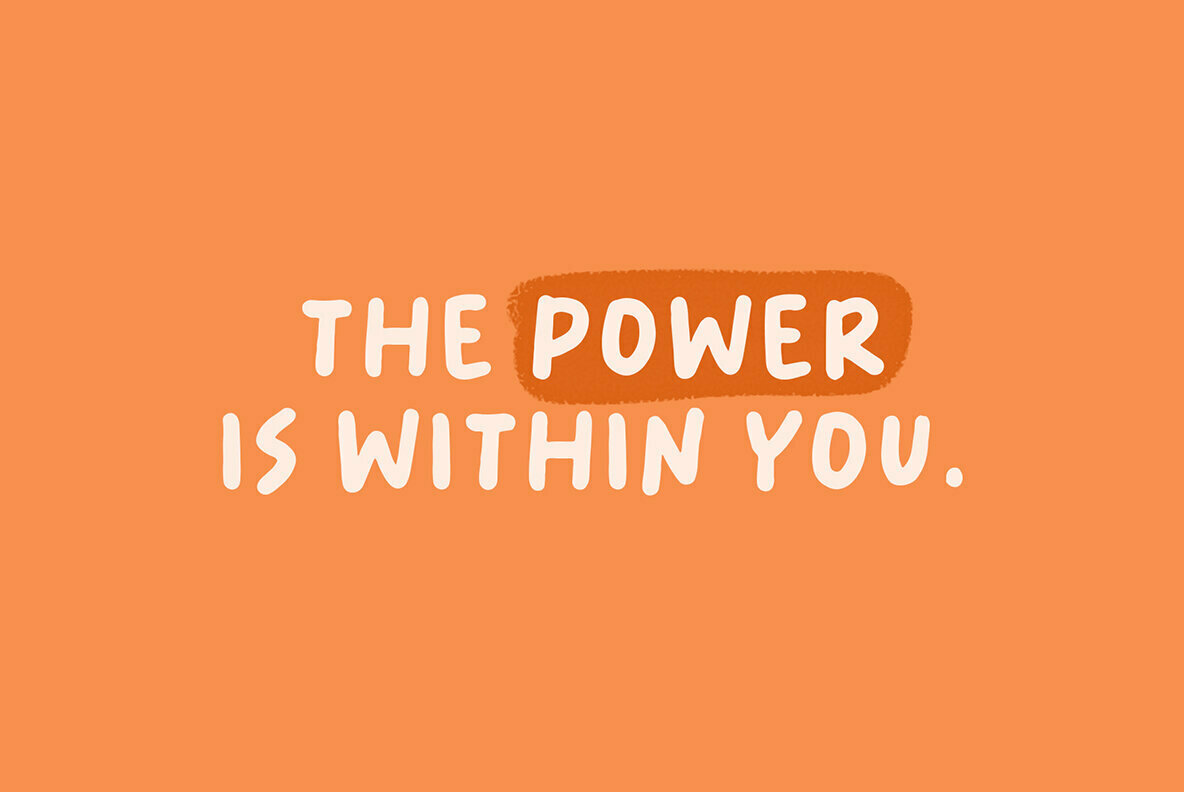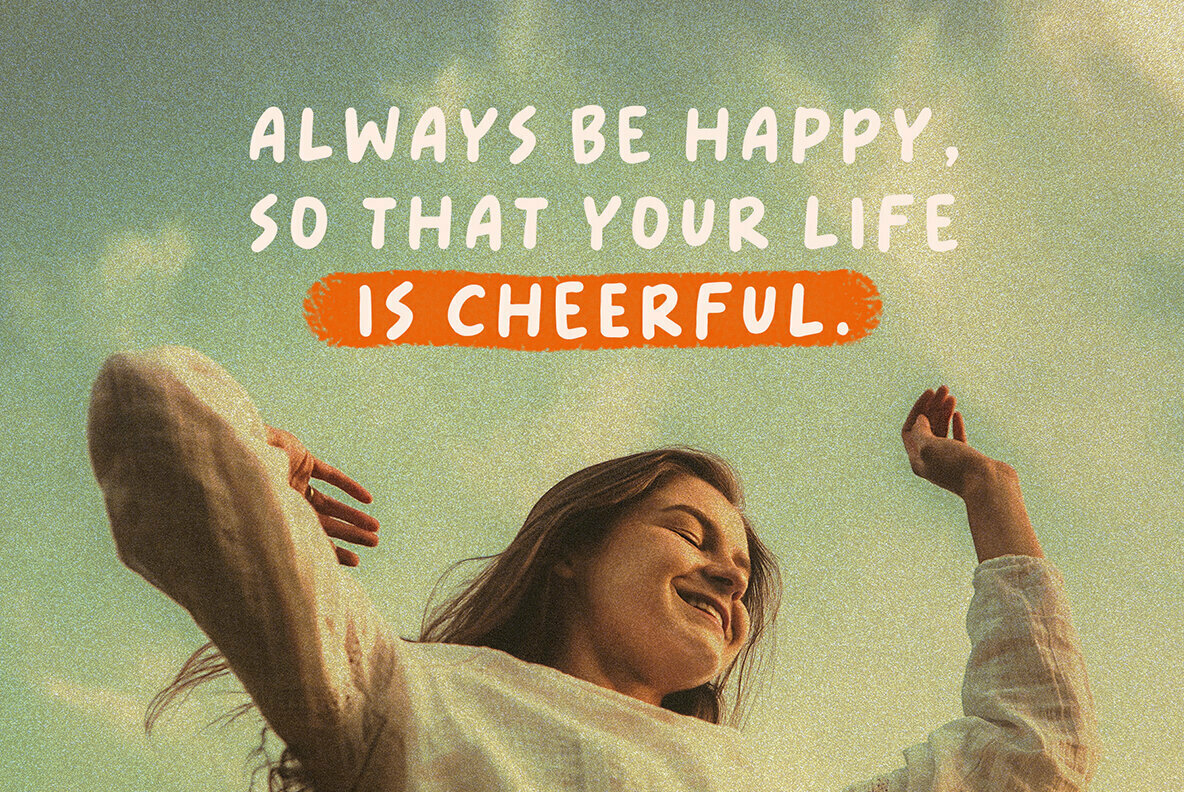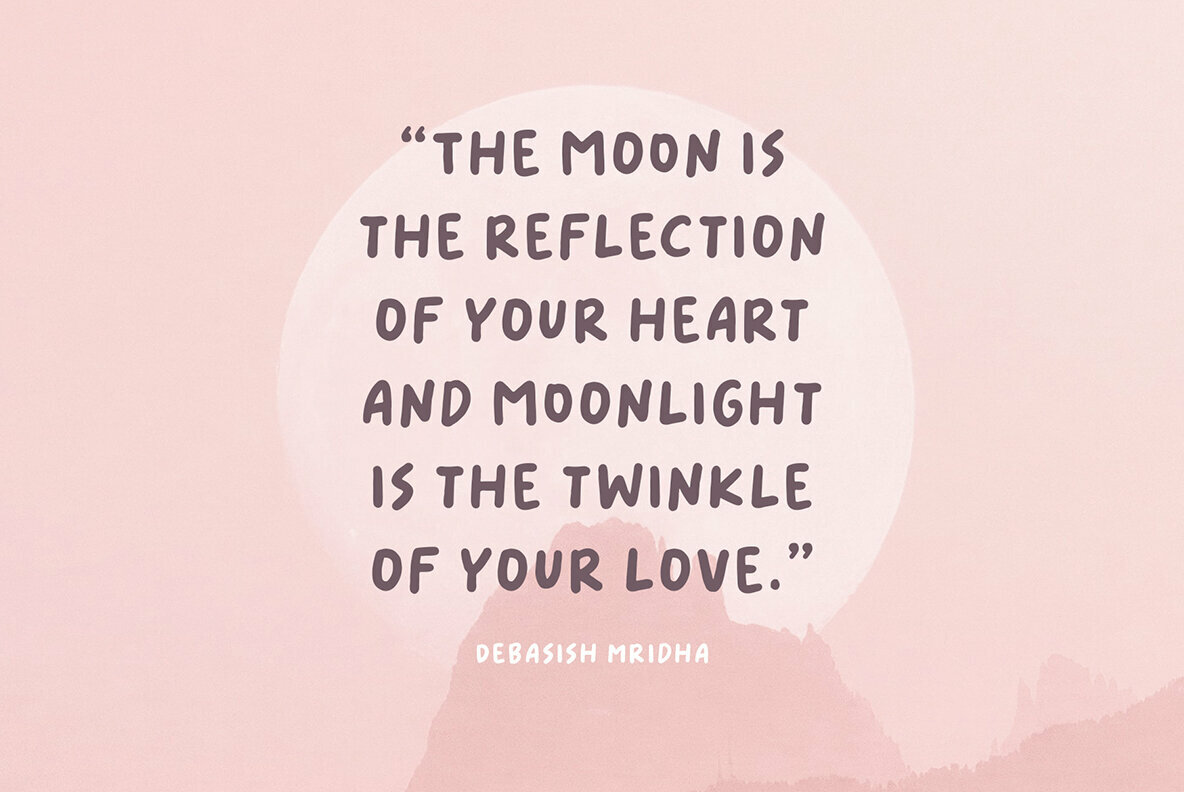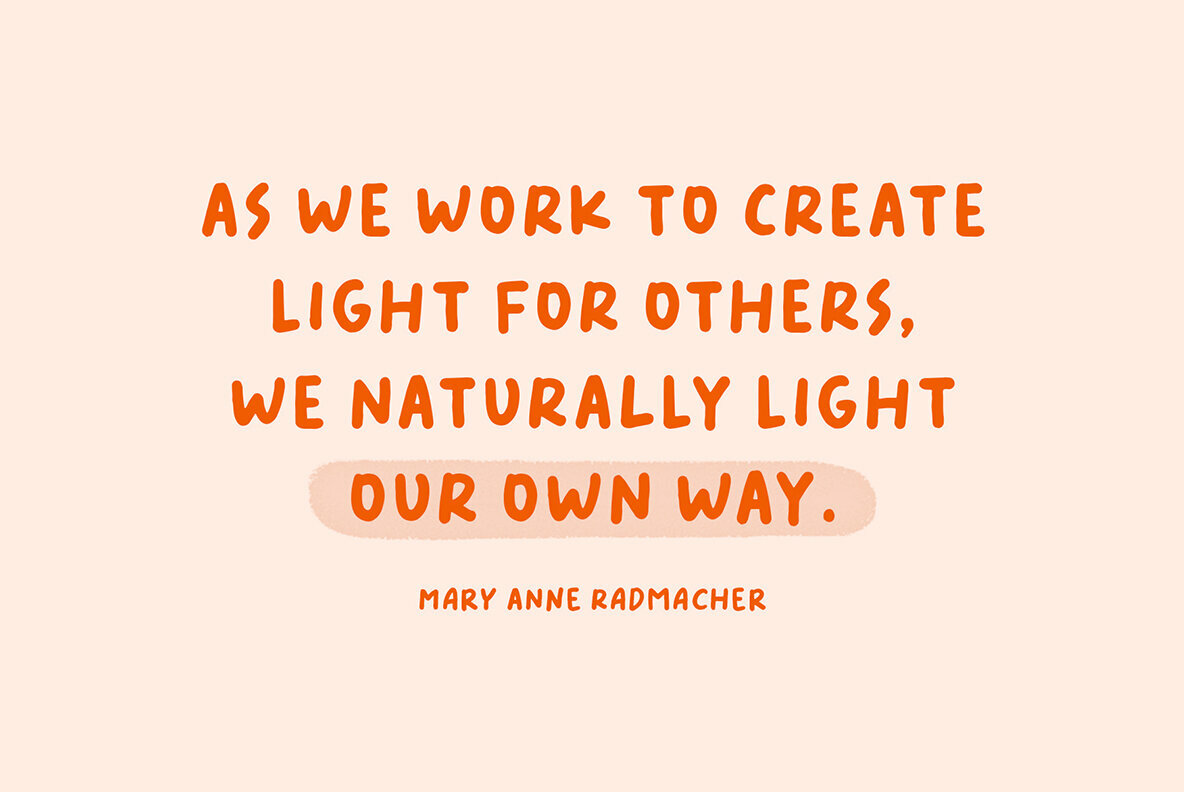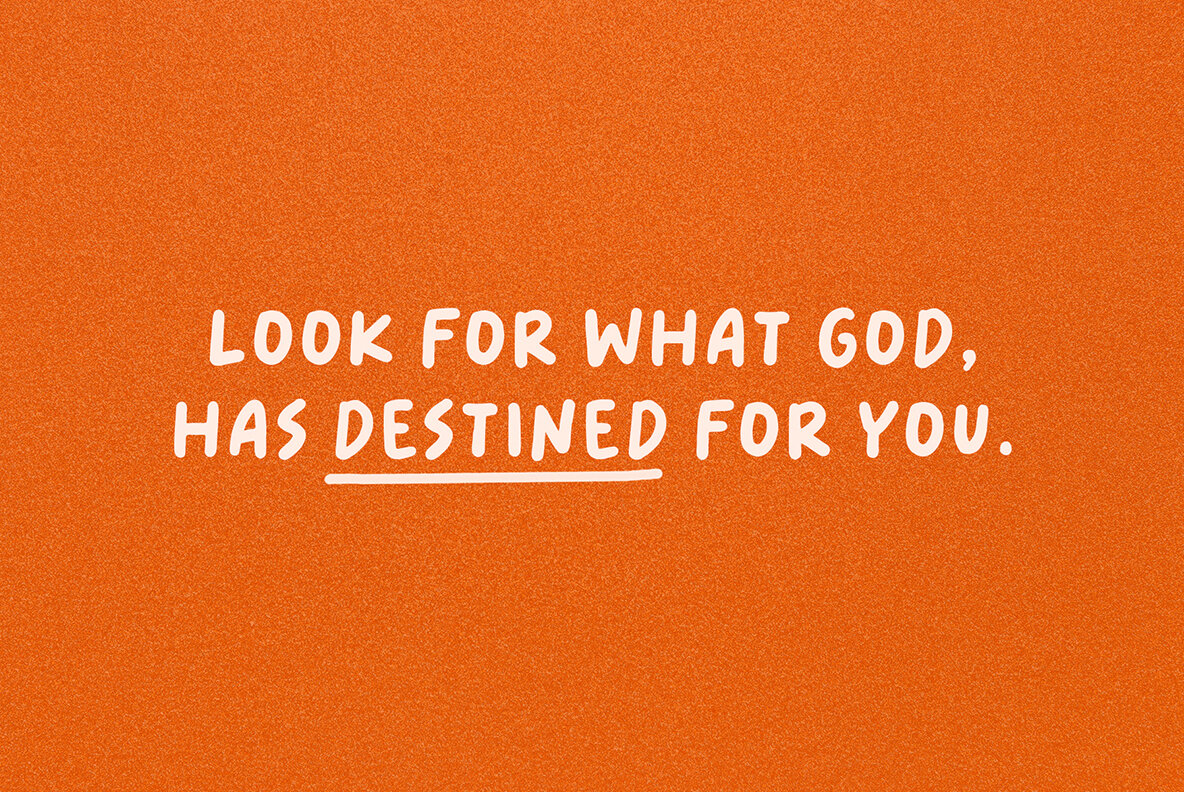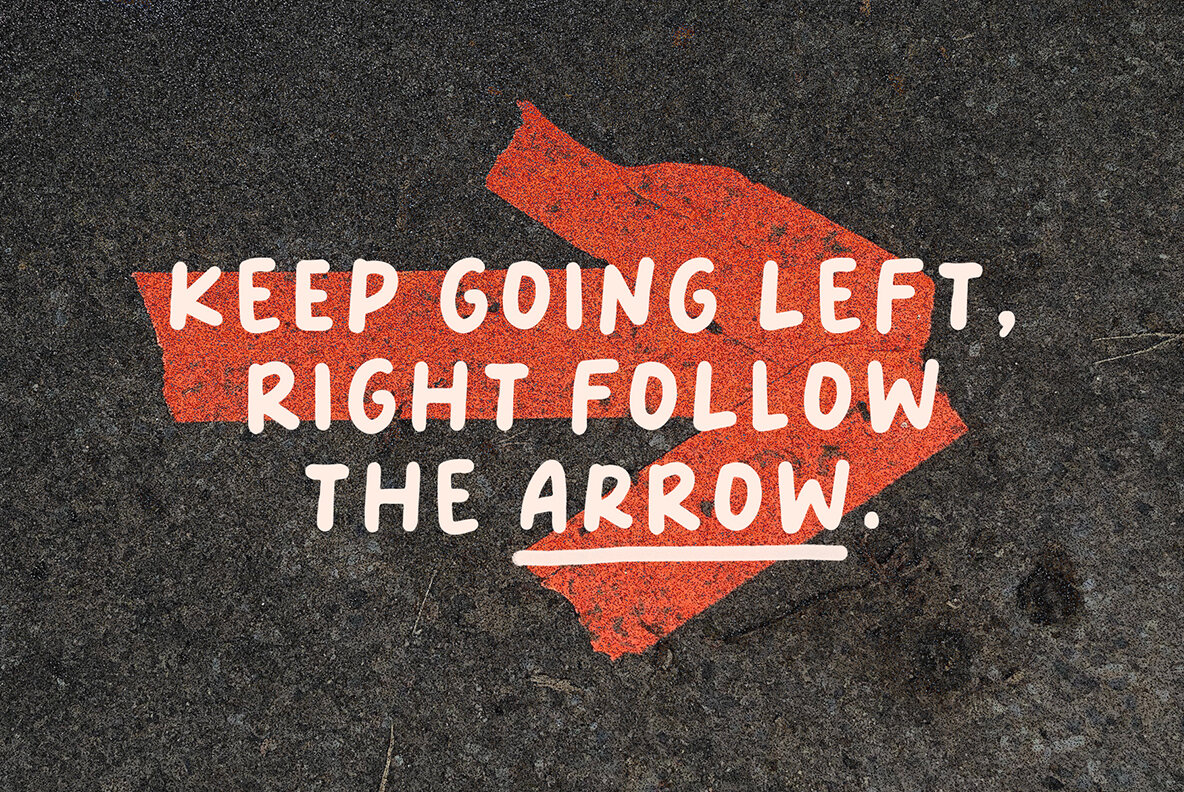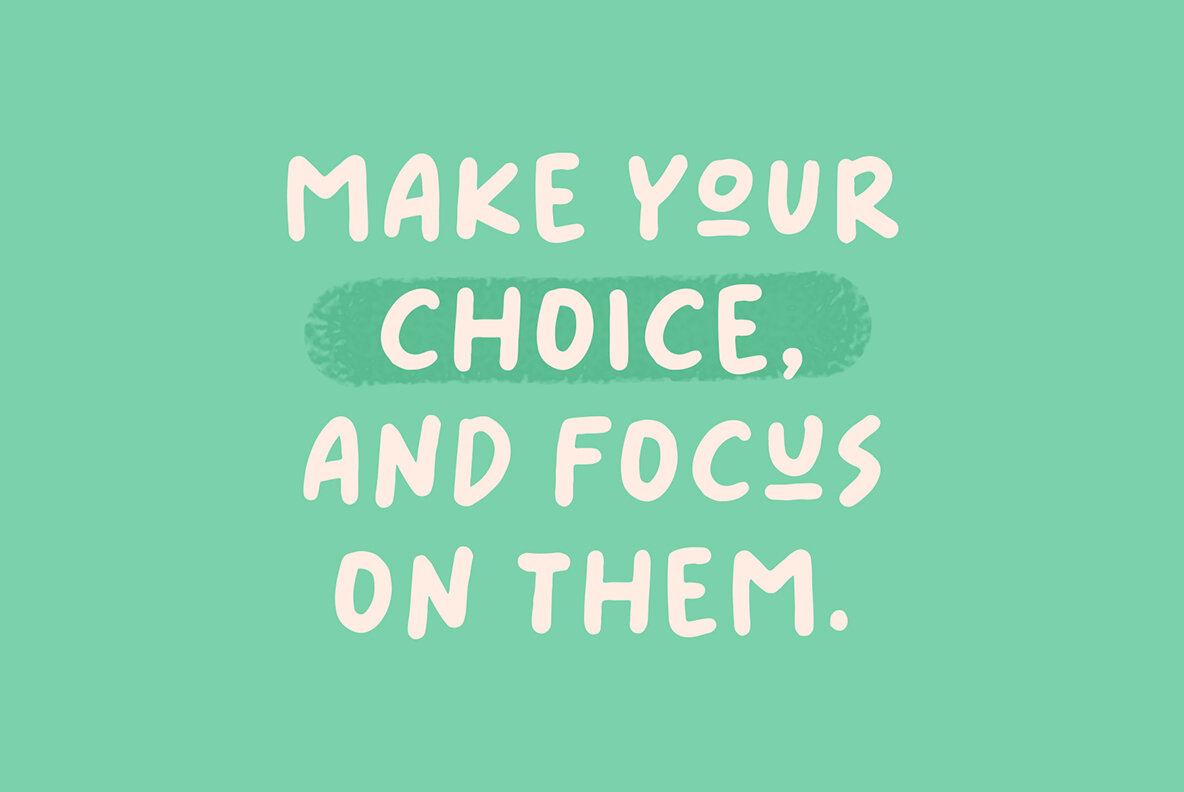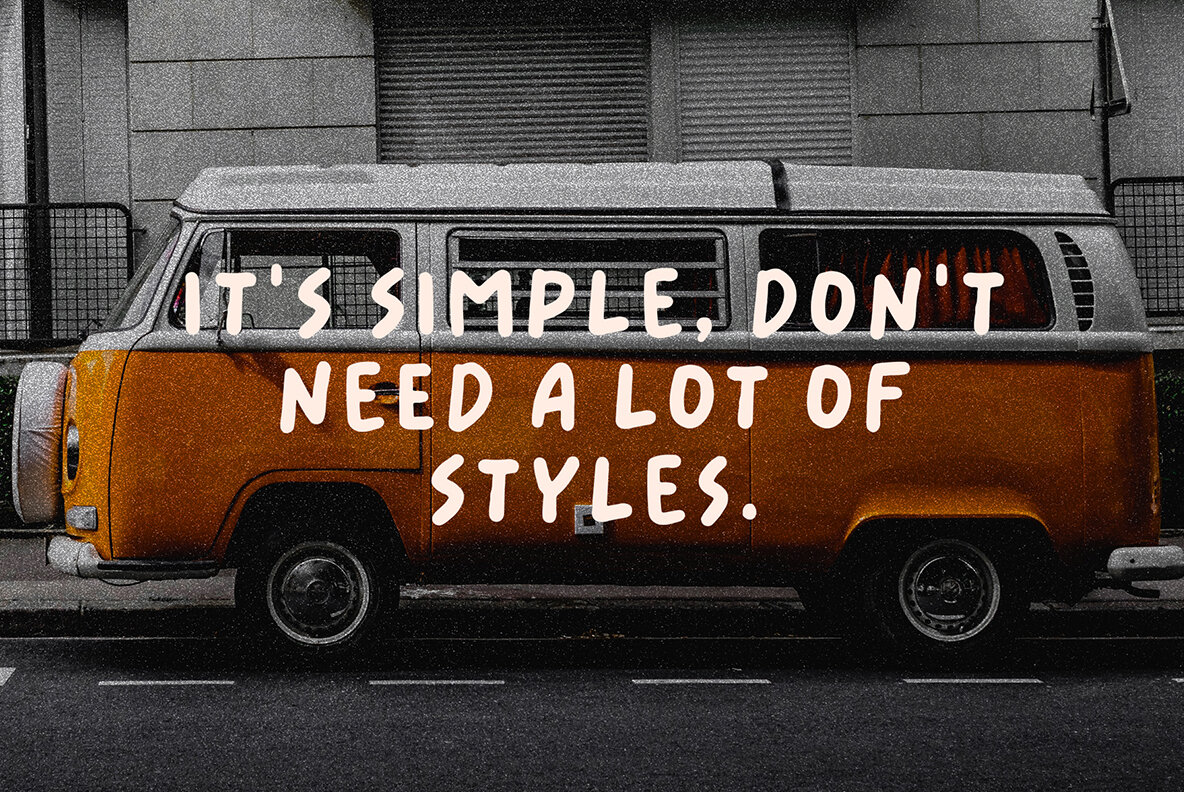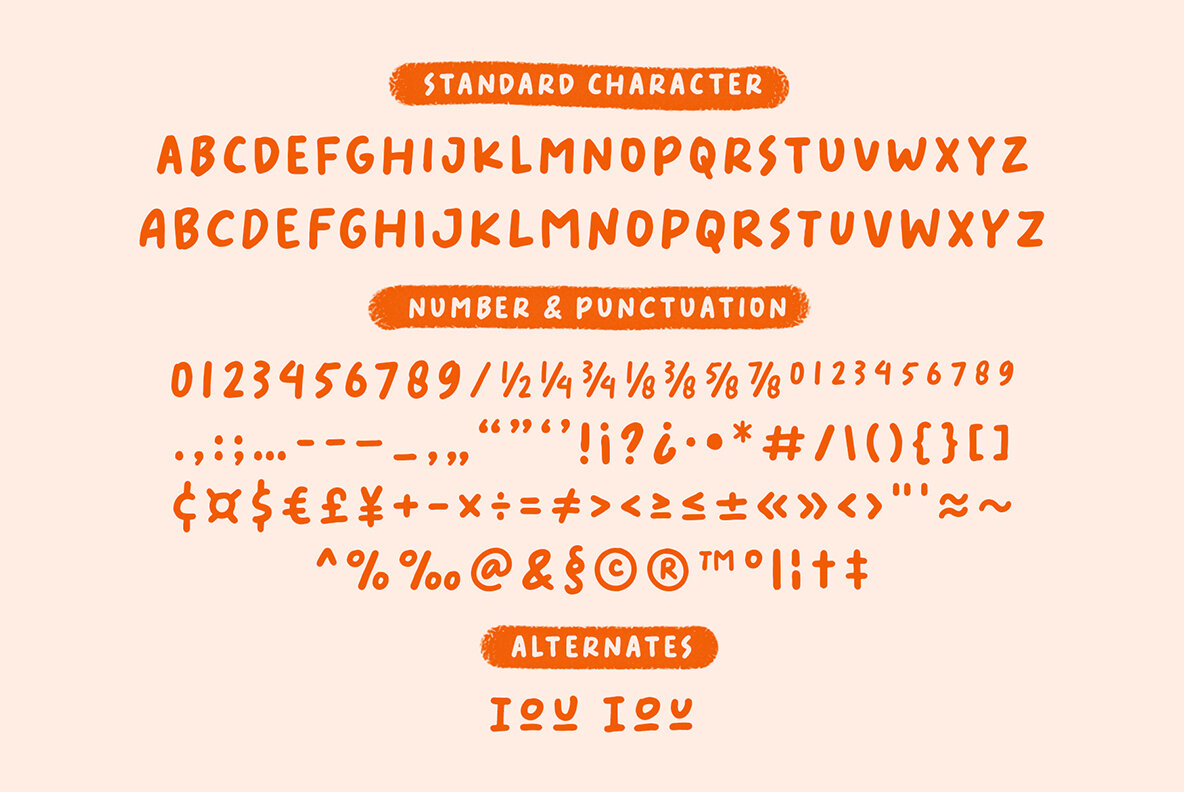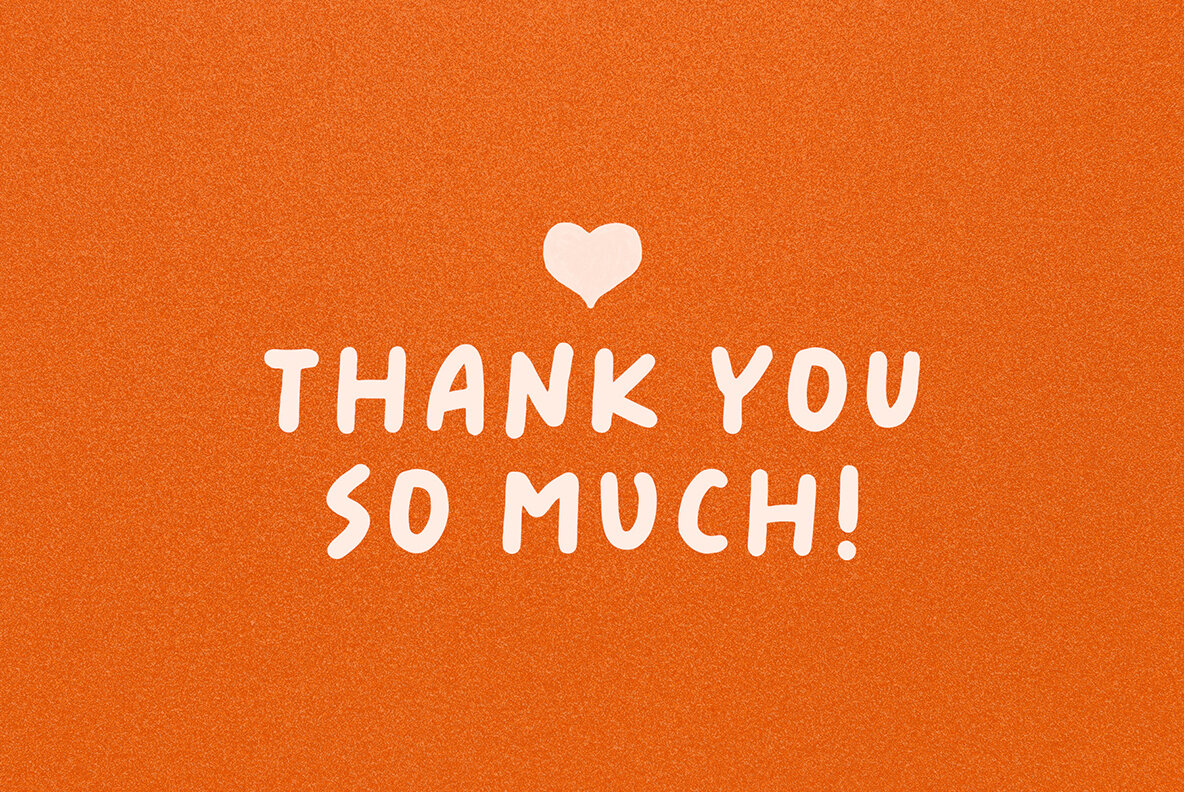
Dynamic Schematic Font
Dynamic Schematic offers a fresh take on handwritten typography, blending spontaneity with relaxed charm. The natural strokes bring a playful touch, ideal for creatives seeking warmth in their headlines or branding projects. The font's adaptability ensures it functions well in various contexts, from promotional quotes to diverse design elements. Features:Dynamic Schematic: Effortlessly Handwritten Elegance